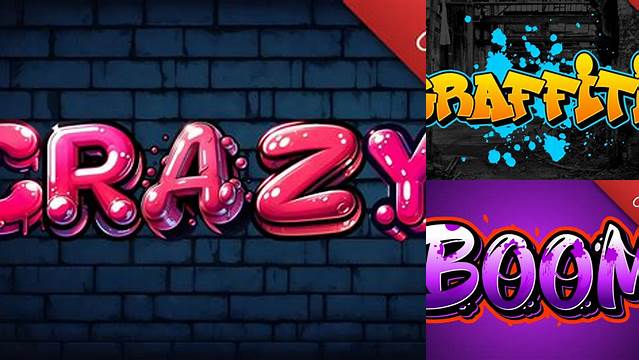
Free Graffiti Font Generator: Create Cool Text Designs
Graffiti art, a vibrant expression of urban culture, has transcended its origins to become a respected art form. Its bold lines, intricate letterforms, and striking colors captivate audiences worldwide. If you've ever been drawn to the raw energy of graffiti and wanted to create your own tag, mural, or digital artwork, you're in luck! A free graffiti font generator can be your gateway to this exciting world.
What is a Free Graffiti Font Generator?
Guys, a free graffiti font generator is an online tool that allows you to create text in a variety of graffiti styles. These generators offer a wide range of fonts that mimic the look and feel of authentic street art. Forget about spending hours trying to perfect your lettering – these generators provide a quick and easy way to transform your ideas into eye-catching designs. It is so fascinating how these generators work, they are built on algorithms and large font libraries, where users can input their desired text and customize various aspects like font style, color, size, and effects. Some advanced generators even allow users to add outlines, shadows, and other stylistic elements to further enhance the graffiti look. The possibilities are endless when you combine your creativity with such technology. Whether you're a professional designer or just someone looking to add a unique touch to your personal projects, these generators are amazing tools.
These generators are more than just convenient tools, they are gateways to creativity. Think about the possibilities! You can design logos for your streetwear brand, create personalized posters, or add an edgy touch to your social media graphics. For educators, these generators can be invaluable resources for art projects, allowing students to explore typography and urban art in a fun and engaging way. The accessibility of these tools empowers everyone to experiment with graffiti art, regardless of their artistic background. So go ahead, explore the world of graffiti fonts and let your imagination run wild!
Why Use a Graffiti Font Generator?
There are many reasons why using a graffiti font generator is a fantastic idea. Whether you're a seasoned graphic designer or just starting to explore the world of digital art, these tools offer numerous benefits.
First and foremost, convenience is a major factor. Let's be real, mastering the art of graffiti lettering takes time, practice, and a steady hand. With a font generator, you can instantly create graffiti-style text without the need for extensive artistic skills. This is especially useful for projects with tight deadlines or when you need to quickly visualize your ideas. The speed and efficiency of these generators are unmatched. You can experiment with different fonts, sizes, and colors in a matter of minutes, allowing you to refine your design until it's perfect.
Another key advantage is the variety they offer. Graffiti font generators boast an impressive library of styles, ranging from classic bubble letters to wildstyle and everything in between. This diversity enables you to find the perfect font to match the tone and theme of your project. Need something bold and aggressive? There's a font for that. Looking for a more playful and colorful style? You'll find plenty of options to choose from. This extensive selection ensures that you're not limited by your own artistic abilities, but rather inspired by the possibilities.
Accessibility is another significant perk. Most online graffiti font generators are free to use, making them accessible to anyone with an internet connection. You don't need to invest in expensive software or specialized equipment to start creating your own graffiti-inspired designs. This democratization of art tools is empowering, allowing individuals from all backgrounds to express their creativity and explore new artistic avenues.
Finally, experimentation is made easy. Graffiti font generators encourage you to play around with different styles and effects. You can quickly test out various combinations of fonts, colors, and layouts to see what works best. This iterative process is crucial for honing your design skills and developing your own unique style. The ability to easily modify and refine your creations fosters a sense of exploration and discovery, making the design process more enjoyable and productive.
Key Features to Look for in a Free Graffiti Font Generator
When choosing a free graffiti font generator, it's important to consider the features that will best suit your needs. Not all generators are created equal, and some offer more functionality and customization options than others. Let's dive into some key features you should look for to ensure you get the most out of your chosen tool.
First and foremost, font variety is crucial. A good generator should offer a wide range of graffiti styles, from classic bubble letters and block fonts to more intricate and modern designs. The more options you have, the better equipped you'll be to find the perfect font for your project. Think about the different moods and messages you might want to convey – a diverse font library ensures you can match the style to the sentiment. This includes a broad selection of styles, like wildstyle, tag fonts, throw-up styles, and stencil fonts. Each style has its own unique characteristics, and having access to all of them expands your creative potential.
Customization options are another essential feature. The ability to adjust the size, color, and spacing of the letters can significantly impact the final look of your design. Look for generators that allow you to tweak these settings to achieve your desired aesthetic. Color customization is particularly important, as the right color palette can make or break a graffiti design. The ability to add outlines, shadows, and other effects further enhances your control over the final product. These small details can elevate your design from simple text to a compelling piece of art.
User-friendliness is also key, especially if you're new to graffiti art or graphic design. A generator with an intuitive interface and clear instructions will make the design process much smoother and more enjoyable. You want to spend your time creating, not wrestling with complicated software. Look for generators with drag-and-drop functionality, real-time previews, and easy-to-understand menus. A clean and uncluttered interface can make a world of difference in your overall experience.
Finally, output options are important to consider. How will you be using your generated text? If you need a high-resolution image for printing, make sure the generator allows you to download your design in a suitable format, such as PNG or SVG. If you're using the text for a website or social media graphic, you may need different file types or sizes. Some generators even offer the option to download the font file itself, allowing you to use it in other design software. Understanding your output needs will help you choose a generator that meets those requirements.
Top Free Graffiti Font Generators Online
Alright, guys, let's get to the good stuff! You're probably itching to start creating your own graffiti masterpieces, so let's take a look at some of the top free graffiti font generators available online. These tools offer a range of features and styles, so you're sure to find one that suits your creative needs.
Graffiti Generator (GraffitiCreator.net): This is a classic choice and a popular option for its simplicity and ease of use. Graffiti Generator offers a straightforward interface where you can type in your text and choose from a selection of pre-designed graffiti styles. It's perfect for quick and easy designs, especially if you're just starting out. While it may not have the most advanced customization options, its simplicity is its strength. The website is clean and uncluttered, making the design process a breeze. You can quickly generate text in various graffiti fonts and download the image in a high-resolution format. This generator is particularly useful for creating quick mock-ups or social media graphics. Its user-friendly design makes it accessible to both beginners and experienced designers.
Font Graffiti Creator (FontGraffitiCreator.com): This generator stands out with its wide variety of fonts and customization options. You can experiment with different colors, sizes, and effects to create truly unique designs. Font Graffiti Creator also allows you to add backgrounds and other elements to your text, giving you even more creative control. The extensive font library is a major draw, offering everything from classic bubble letters to more abstract and modern styles. The customization options are equally impressive, allowing you to fine-tune every aspect of your design. You can adjust the spacing between letters, add outlines and shadows, and even apply textures to create a truly authentic graffiti look. This generator is ideal for those who want to delve deeper into the design process and create highly personalized artwork.
Cool Text (CoolText.com): Don't let the name fool you; Cool Text is more than just cool – it's a versatile tool with a range of graffiti font options. This generator lets you create logos, banners, and other graphics in various styles, including graffiti. Its user-friendly interface and extensive customization options make it a great choice for a variety of projects. Cool Text is known for its ease of use and its wide range of design options. You can create text in various styles, including graffiti, and customize it with different colors, fonts, and effects. The website also offers a variety of other design tools, such as logo makers and banner generators, making it a one-stop-shop for your graphic design needs. This generator is particularly useful for creating eye-catching logos and banners for your website or social media profiles. Its versatility and user-friendly interface make it a popular choice among both beginners and experienced designers.
TextPro (TextPro.me): This generator is a hidden gem with a sleek interface and a focus on high-quality graffiti fonts. TextPro offers a range of realistic graffiti styles that are perfect for creating professional-looking designs. One of the standout features of TextPro is its ability to generate 3D graffiti text, adding depth and dimension to your designs. This generator is ideal for creating eye-catching visuals that will stand out from the crowd. The sleek interface makes it easy to navigate, and the high-quality fonts ensure that your designs look professional. TextPro also offers a variety of other text effects and styles, making it a versatile tool for all your graphic design needs. If you're looking for a generator that can produce realistic and visually stunning graffiti text, TextPro is an excellent choice.
Tips for Creating Awesome Graffiti Art with a Font Generator
Using a free graffiti font generator is a great starting point, but to truly create awesome graffiti art, you'll want to keep a few tips and tricks in mind. These pointers will help you elevate your designs from simple text to eye-catching works of art. Let's explore some key strategies for making your graffiti art stand out.
First, experiment with different fonts and styles. Don't settle for the first font you see. Take the time to browse through the available options and try out different combinations. Each font has its own unique personality, and the right choice can make a big difference in the overall impact of your design. Think about the message you want to convey and choose a font that aligns with that message. Are you going for a bold and aggressive look, or something more playful and whimsical? The font you choose should reflect the tone and theme of your project.
Color is another crucial element of graffiti art. Don't be afraid to use bold and vibrant colors to make your designs pop. Experiment with contrasting colors to create visual interest and highlight key elements of your text. Graffiti art is known for its bold color palettes, so embrace the opportunity to make a statement. Consider using complementary colors, such as blue and orange or red and green, to create a visually striking effect. You can also experiment with gradients and color overlays to add depth and dimension to your designs. Remember, the goal is to capture the energy and vibrancy of street art, so don't be afraid to push the boundaries.
Adding outlines and shadows can also significantly enhance the visual appeal of your graffiti art. Outlines help to define the shapes of your letters and make them stand out from the background. Shadows add depth and dimension, creating a more three-dimensional effect. These details can make your designs look more polished and professional. Experiment with different outline thicknesses and shadow directions to see what works best for your chosen font and style. You can also use different colors for your outlines and shadows to add even more visual interest.
Finally, consider the overall composition of your design. Think about the layout, spacing, and balance of your elements. A well-composed design will be more visually appealing and easier to read. Pay attention to the negative space around your text and use it to create a sense of balance and harmony. Experiment with different text alignments and arrangements to see what creates the most dynamic and engaging composition. Remember, graffiti art is all about visual impact, so take the time to craft a design that is both visually striking and aesthetically pleasing.
Unleash Your Creativity with Free Graffiti Font Generators
So, there you have it! With a free graffiti font generator, you have the power to create stunning graffiti art right at your fingertips. These tools make it easy to experiment with different styles, colors, and effects, allowing you to unleash your creativity and express yourself in a unique way. Whether you're designing a logo, creating a poster, or simply want to add some urban flair to your projects, a graffiti font generator is an invaluable resource. The accessibility and versatility of these tools mean that anyone can create amazing graffiti-inspired designs, regardless of their artistic background. The key is to experiment, have fun, and let your imagination guide you.
Remember, the world of graffiti art is all about pushing boundaries and expressing your individuality. Don't be afraid to try new things and develop your own unique style. Use the tips and tricks we've discussed to elevate your designs and create truly memorable artwork. So, go ahead, guys, explore the world of free graffiti font generators and start creating your own masterpieces today! The possibilities are endless, and the only limit is your imagination. Happy creating! This is your chance to make your mark and leave a lasting impression. So, grab your virtual spray can and let your creativity flow!